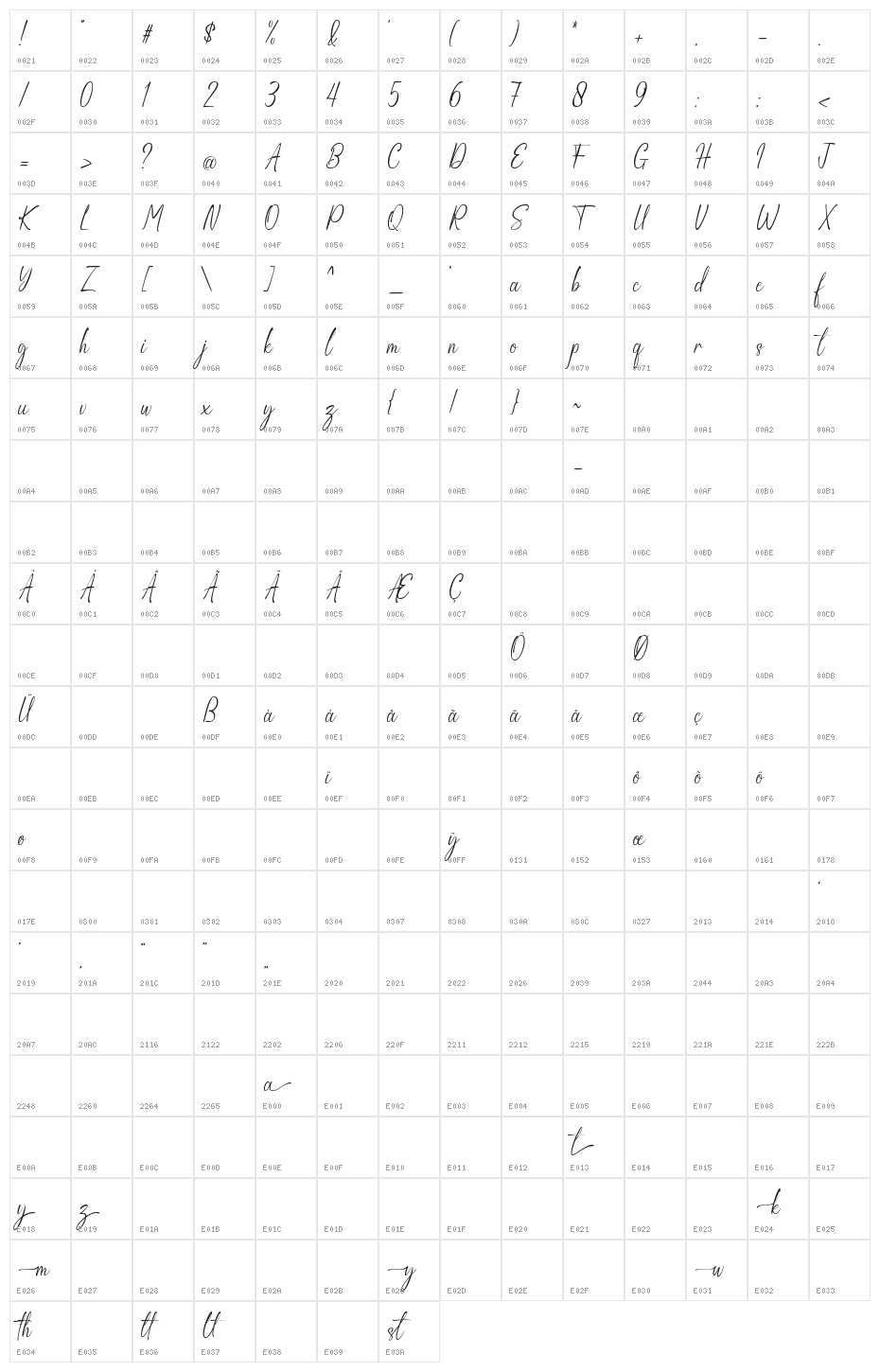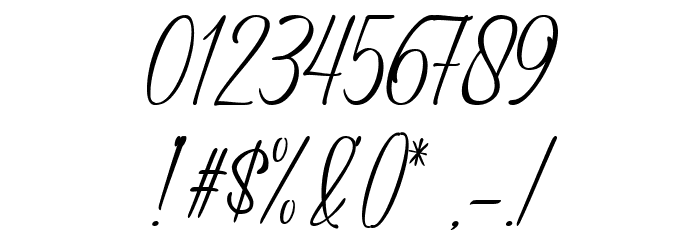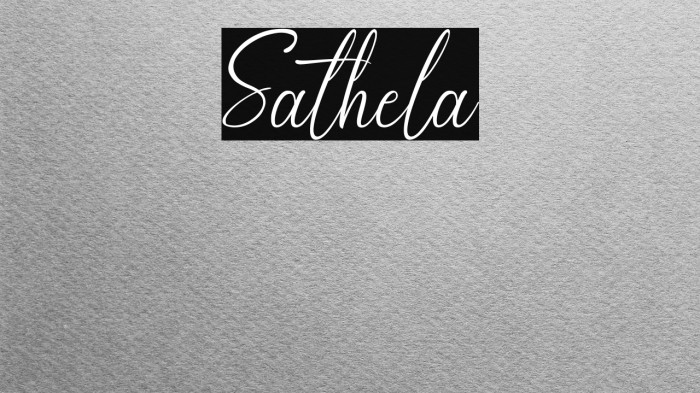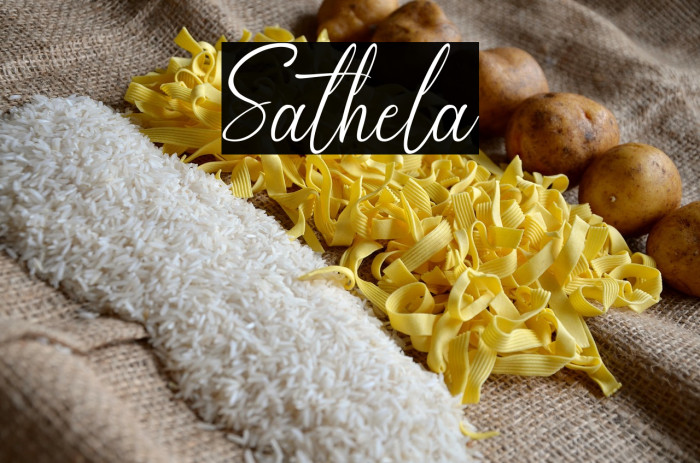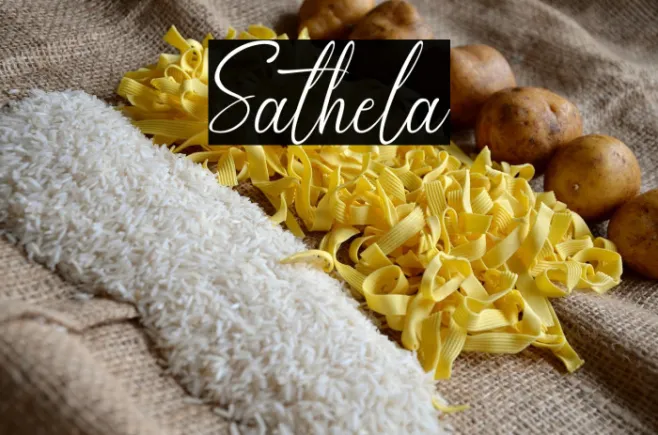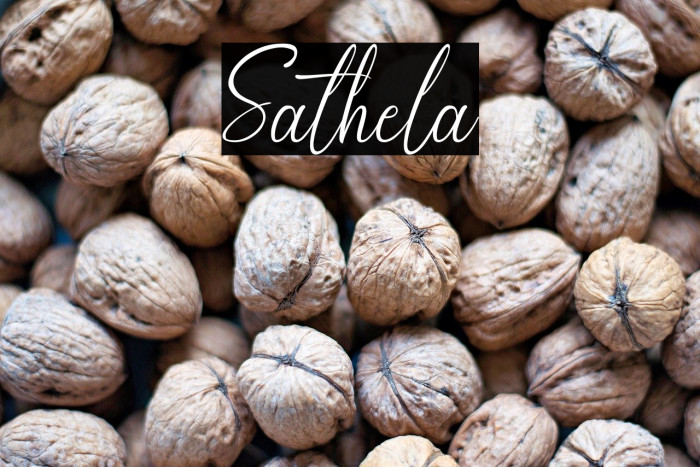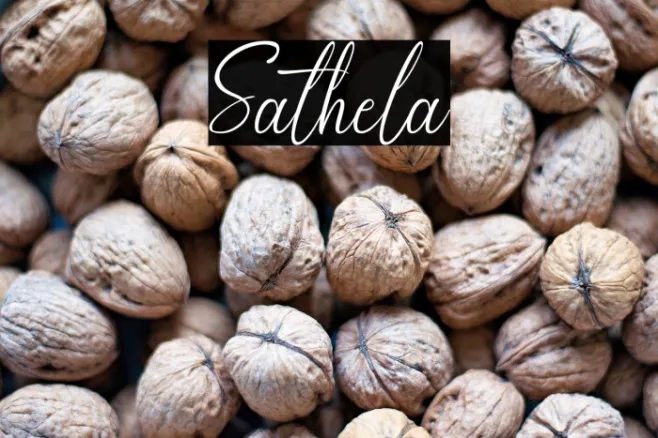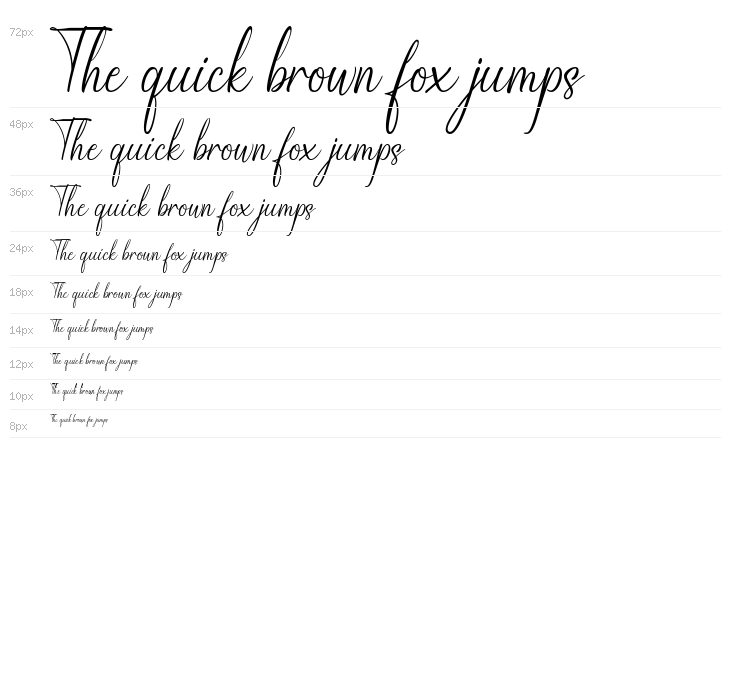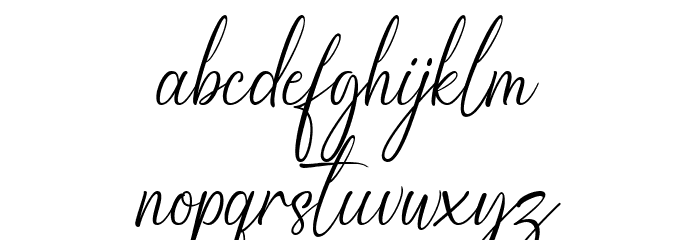
Sathela Font
Sathela Description
This elegant script font features a flowing, cursive style with a modern touch. The letters are interconnected, creating a seamless and fluid appearance. The uppercase characters are tall and graceful, while the lowercase letters maintain a consistent slant, enhancing the font's sophisticated look. The numerals and special characters are designed to complement the overall aesthetic, making it suitable for various decorative purposes. The font's strokes vary in thickness, adding a dynamic quality that captures attention without overwhelming the viewer.